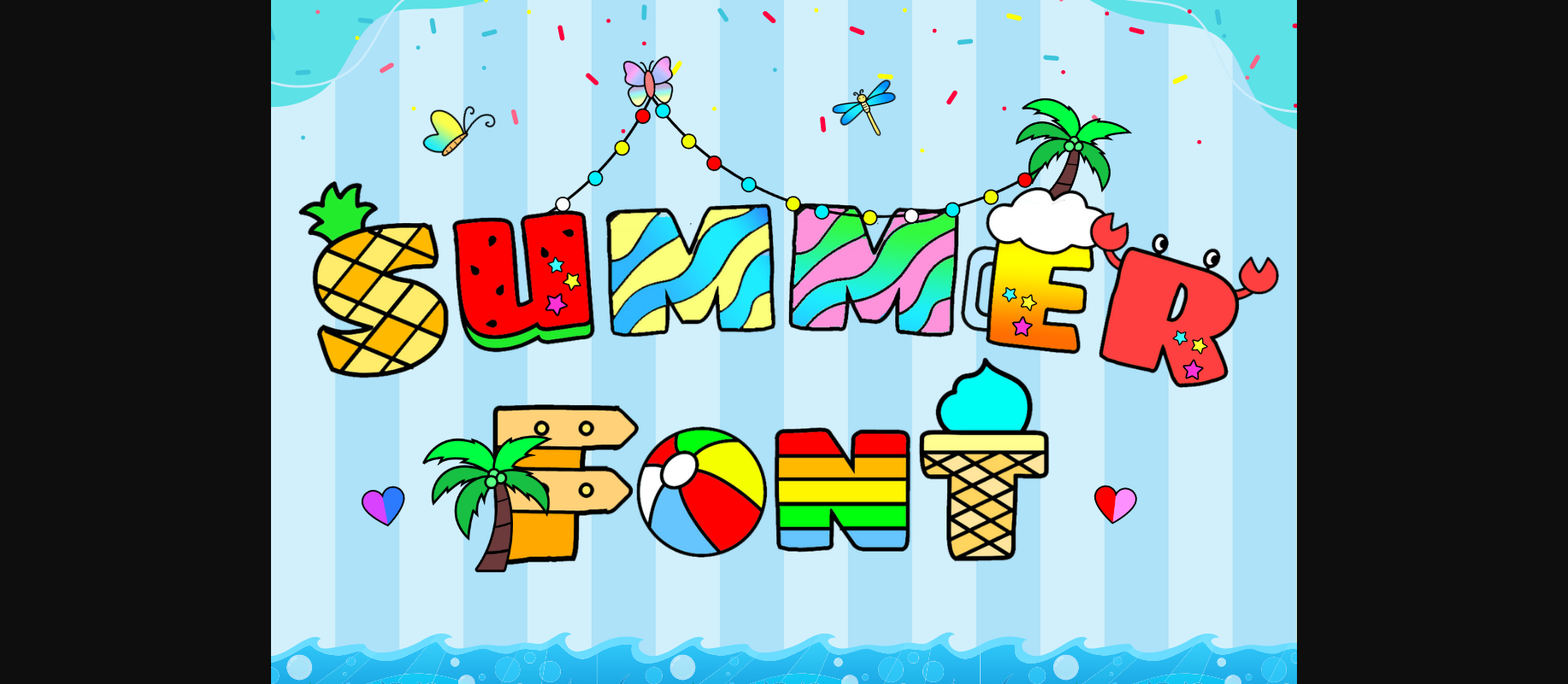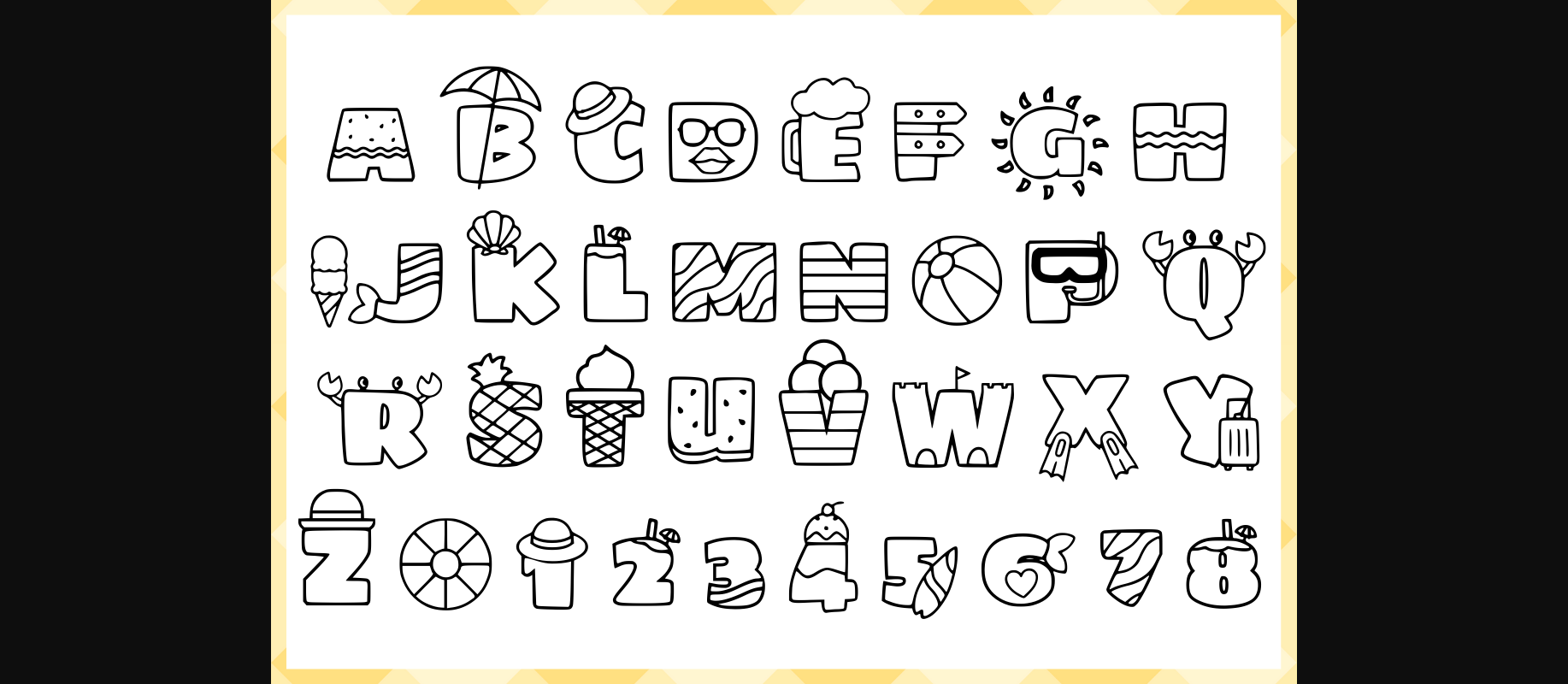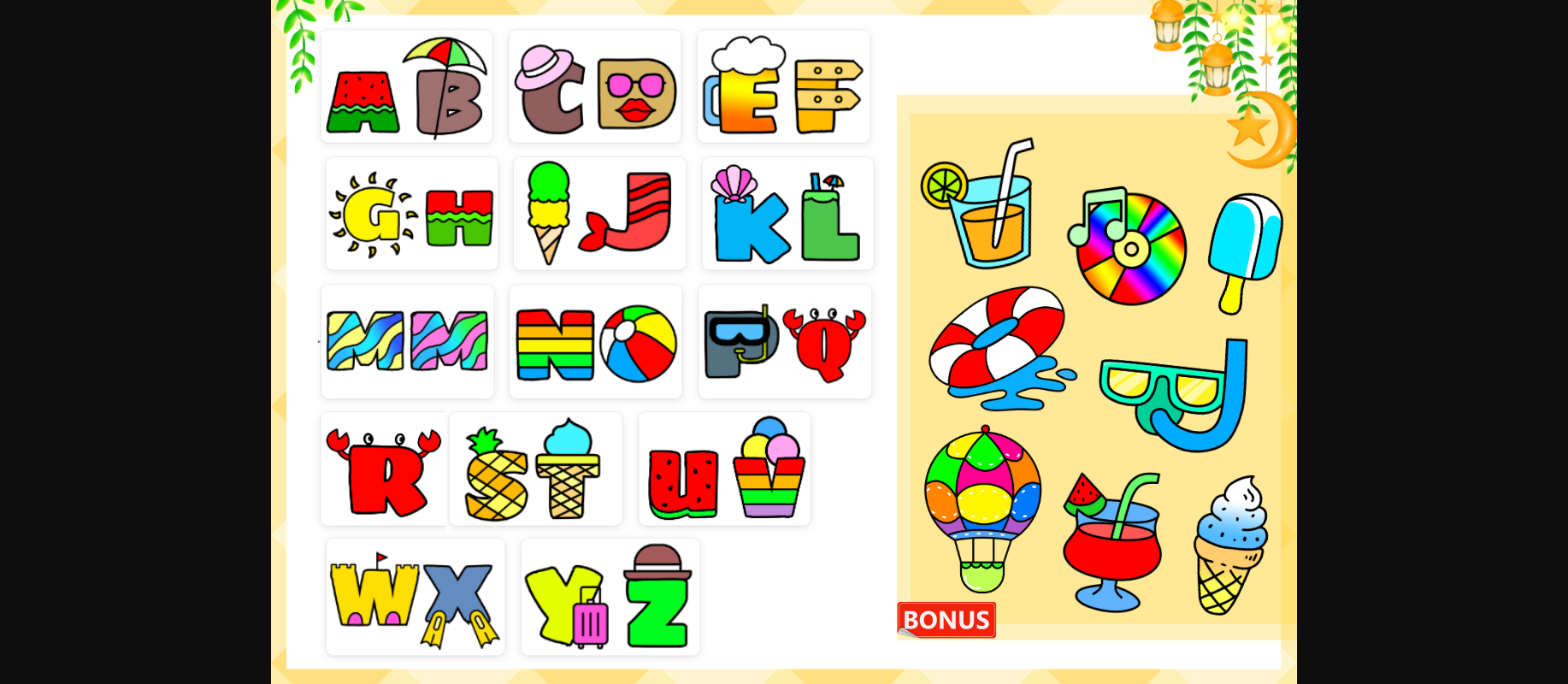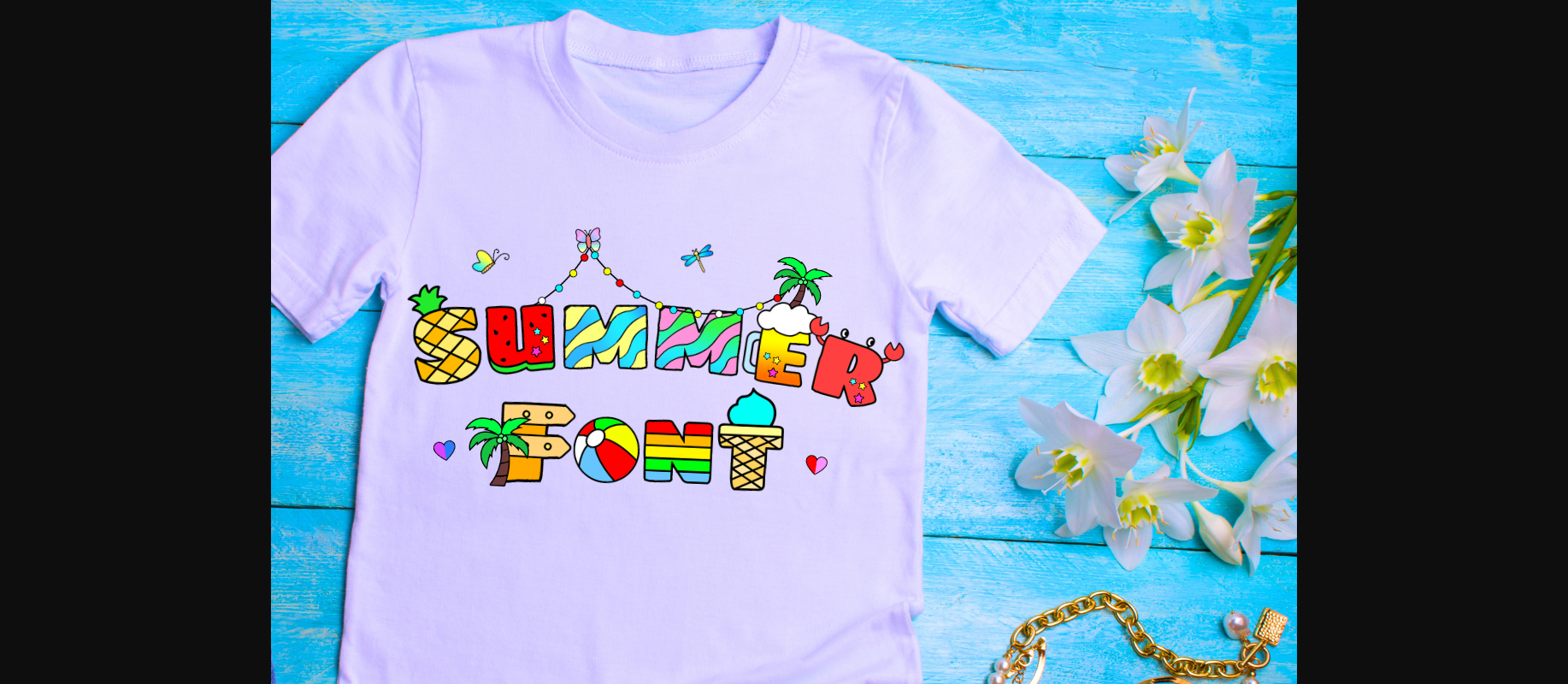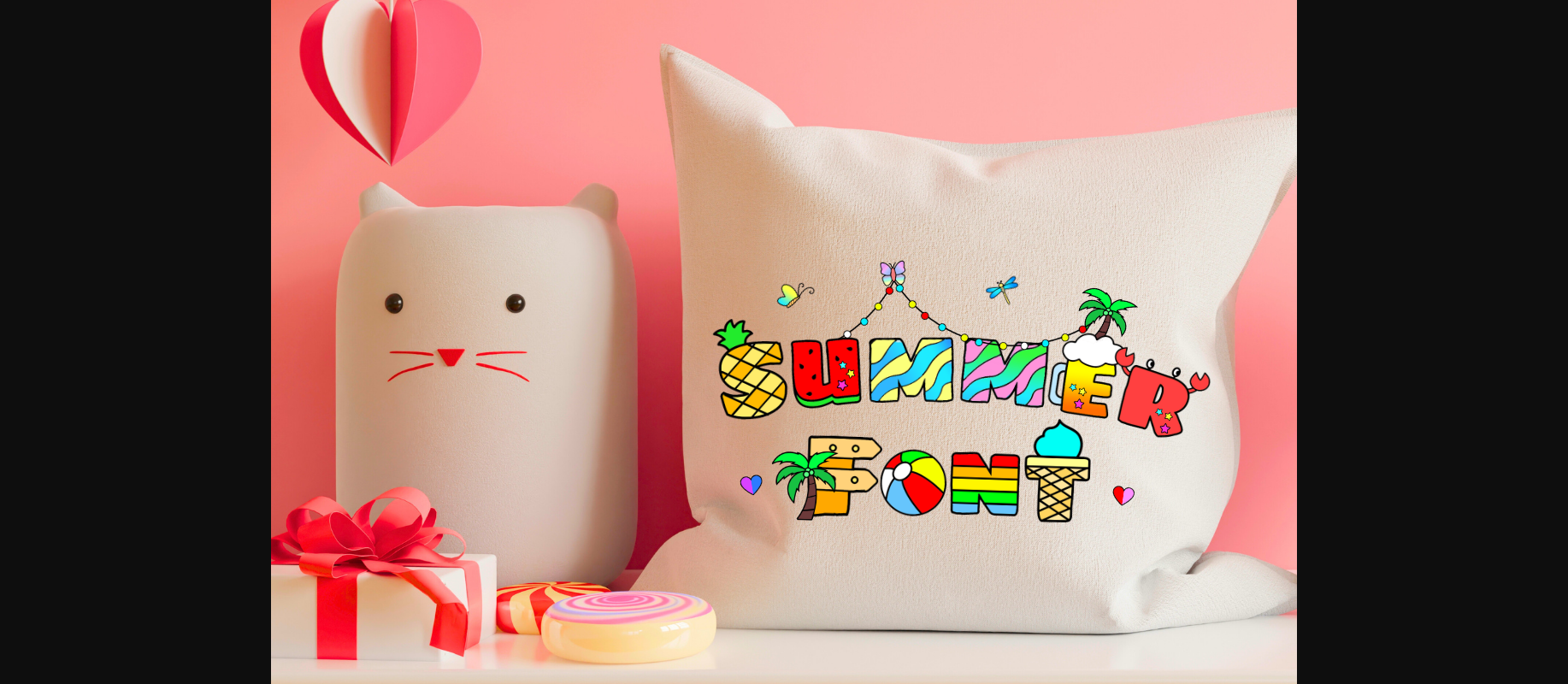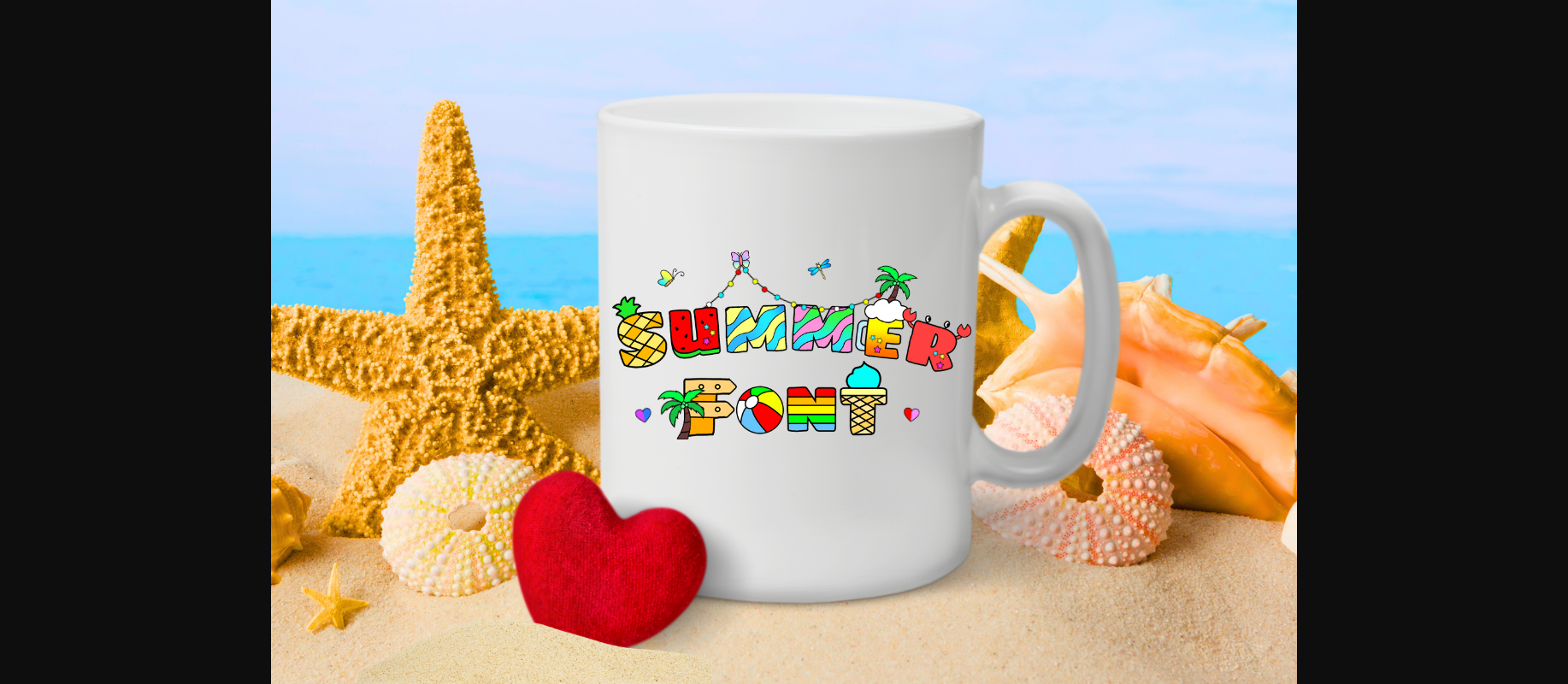
HomeDecorative FontsSummer Font Decorative Fonts Summer Font FacebookXPinterestWhatsApp 1 of 9 ... Summer Font Poster 2... Summer Font Poster 3... Summer Font Poster 4... Summer Font Poster 5... Summer Font Poster 6... Summer Font Poster 7... Summer Font Poster 8... Summer Font Poster 9... About Summer Font Summer is a cute and colorful display font. Add this chunky lettered font to your designs and notice how it makes them come alive! DOWNLOAD NOW People also explored Horelios Medium Font Middle Class Font Boho Ethnic II Font Emeland Font Bunny Font Emelind Font Respect Signature Font Lace Monograms Food Doodle Font 345 0 TagsSummerSummer Font Previous articleFather FontNext articleButterfly Wedding Font LEAVE A REPLY Cancel reply Comment: Please enter your comment! Name:* Please enter your name here Email:* You have entered an incorrect email address! Please enter your email address here Website: Save my name, email, and website in this browser for the next time I comment. Personal Use Free Black Jalal Personal Use Free Read more about this font Geuli Font Personal Use Free Read more about this font Sunshine Tropical Font Personal Use Free Read more about this font Juliagar Personal Use Free Read more about this font BLOG 5 Fonts That Will Dominate Design Trends in 2026 5 Fonts for 2026 That Will Dominate Design Trends Typography plays a critical role in visual communication, and as we look ahead to 2026, it’s... Where to Buy American Fonts Online in 2024 Best Fonts for YouTube Videos: Make Your Thumbnails Stand Out Free vs Paid Fonts: Why Investing in Premium Fonts Is Worth It